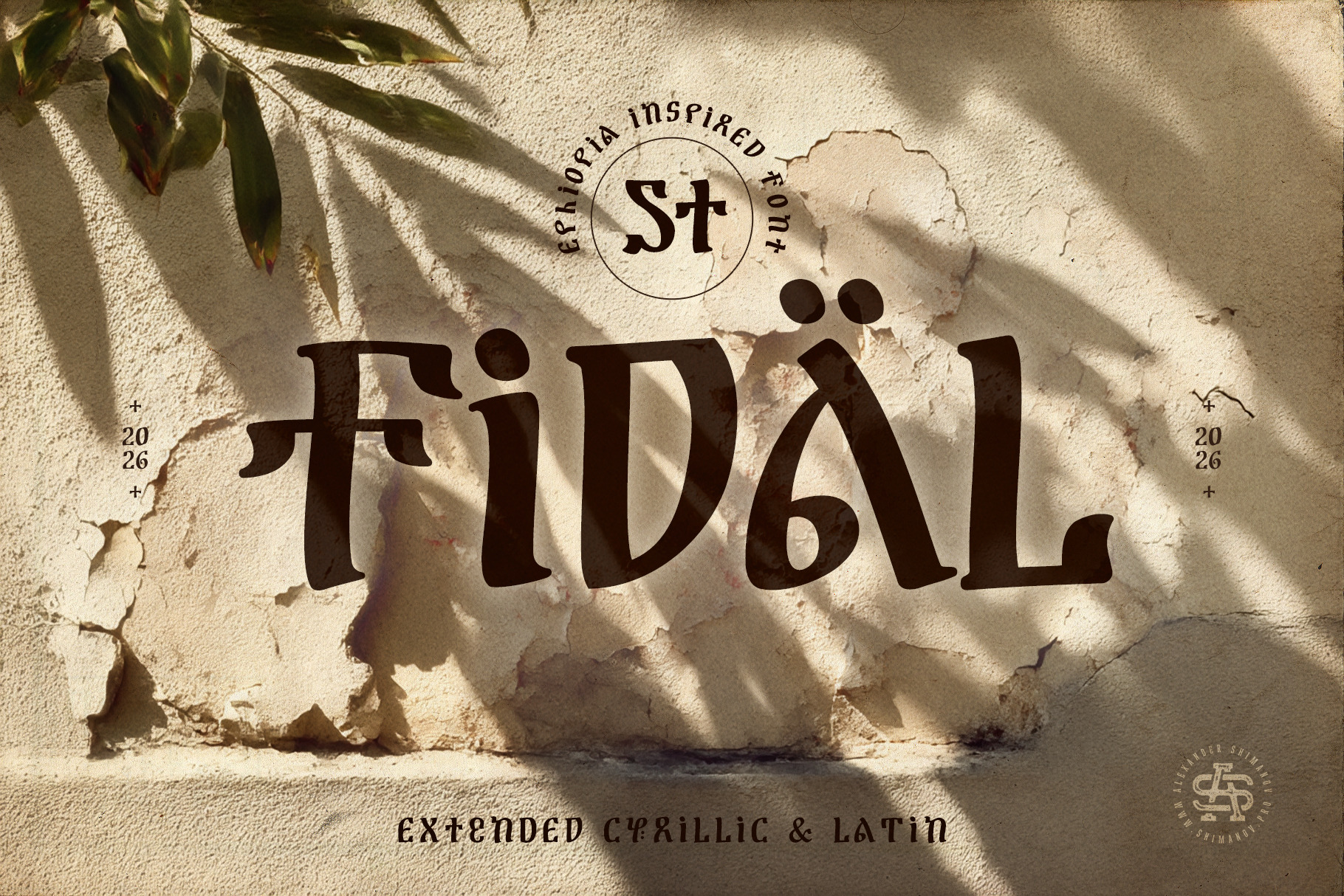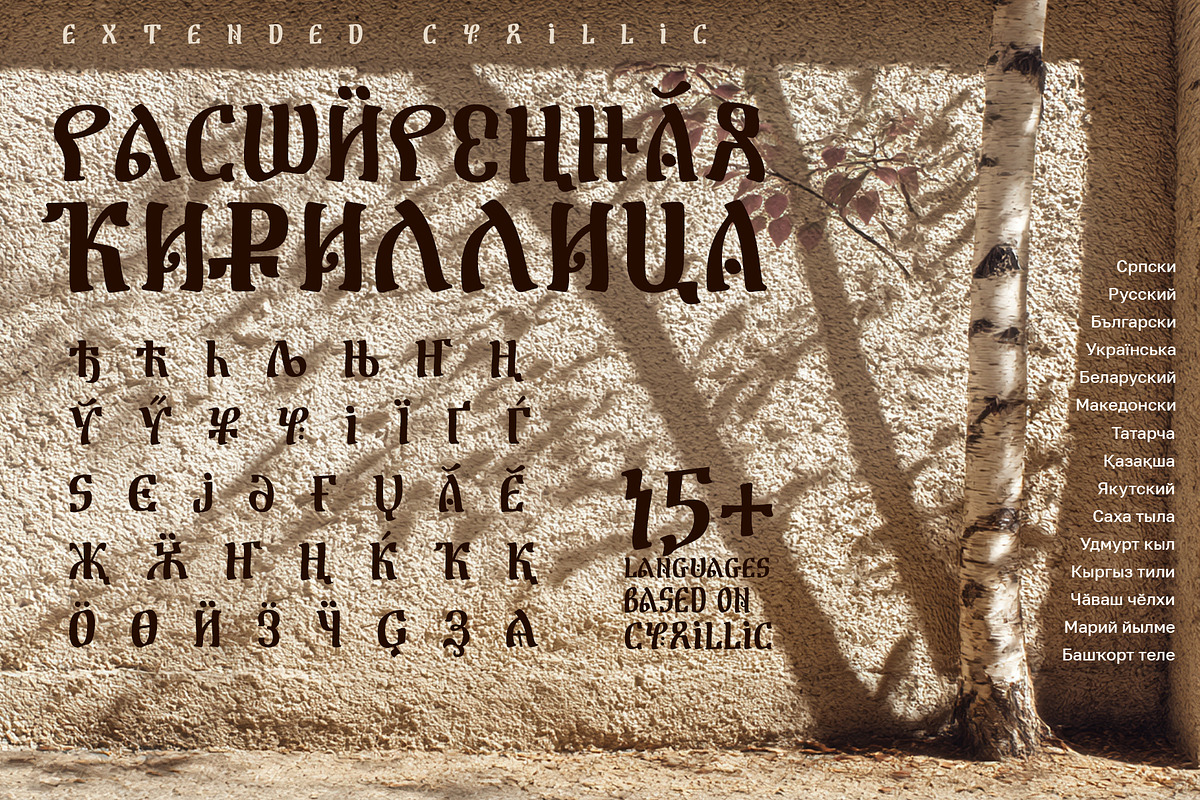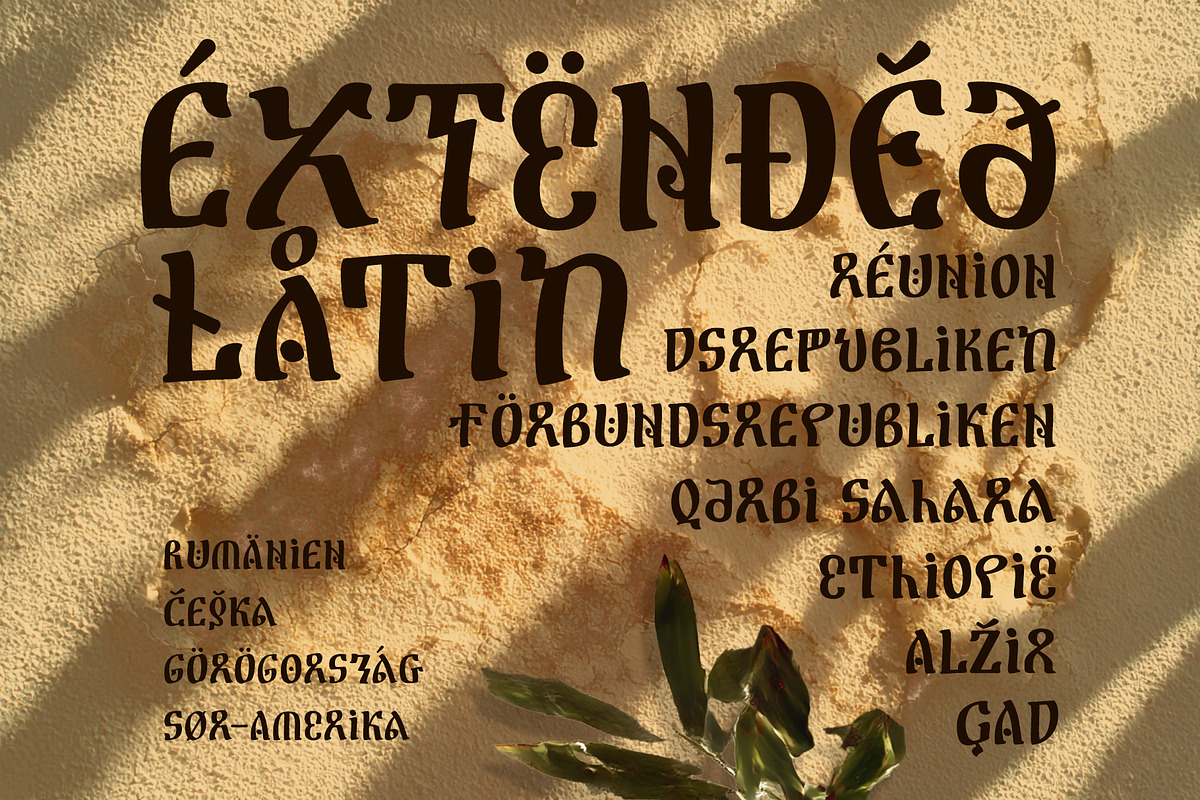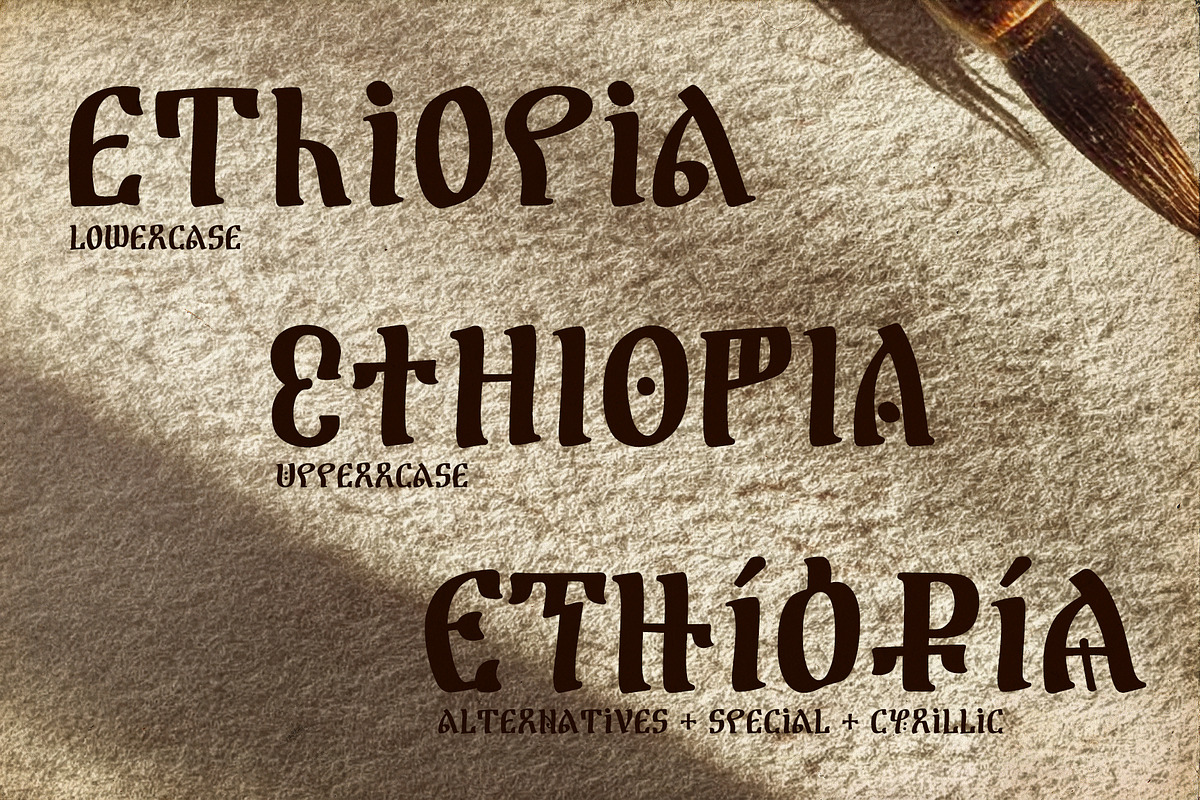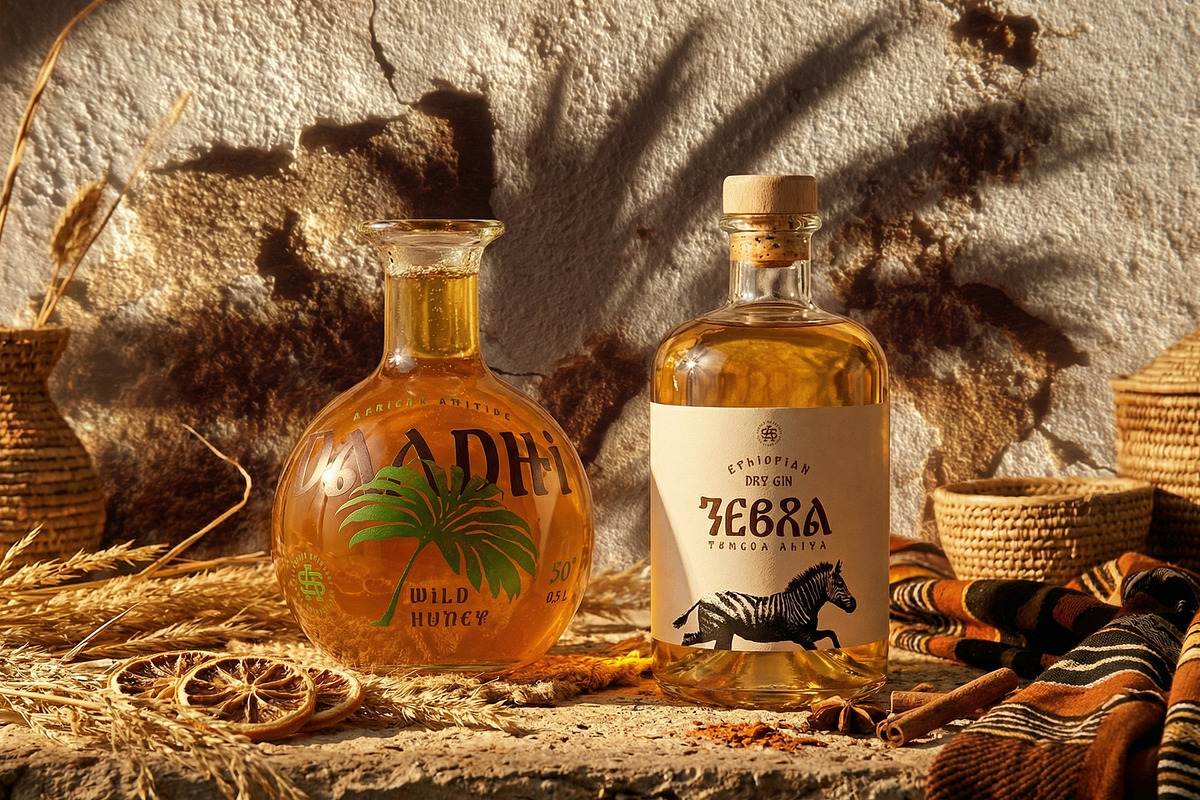
ST-Fidal african font
ST-Fidal is a unique display font stylized to resemble African script. Its unique letterforms possess a recognizable African character, yet remain as legible as modern Cyrillic and Latin letters. The font embodies the spirit of Africa: the atmosphere of adventure, exoticism, travel, and the hot southern sun. Area of Application: The font is perfect for packaging design, posters, and web advertising. It is especially recommended for brand identity development and film design.Technical Features: Complete uppercase and lowercase sets.
Support for extended Cyrillic and Latin (over 40 languages). Includes special characters, alternative glyphs, numerals, and basic punctuation.